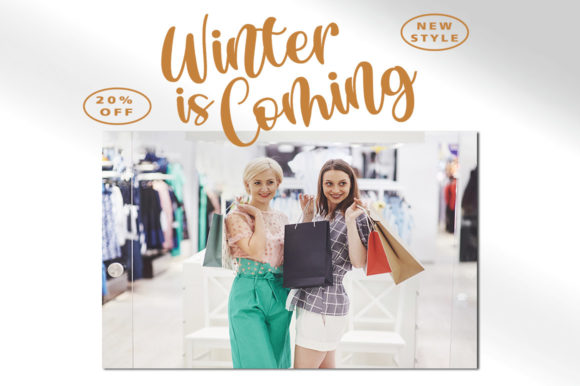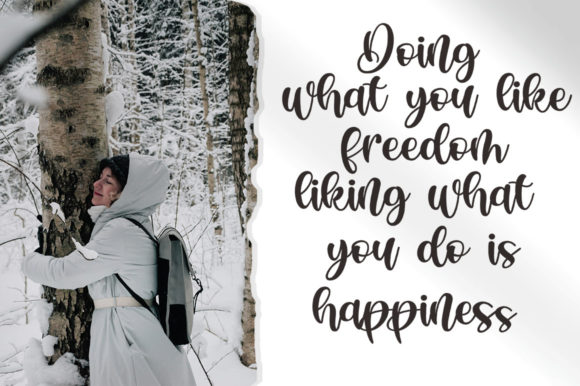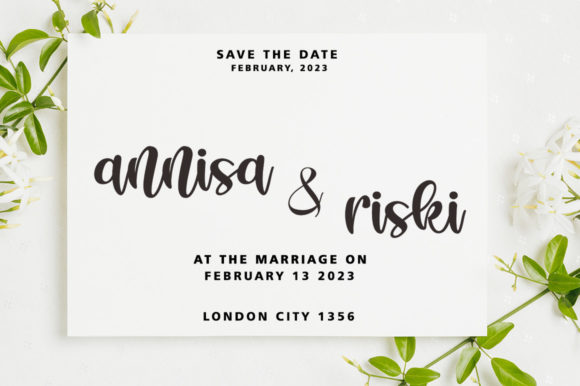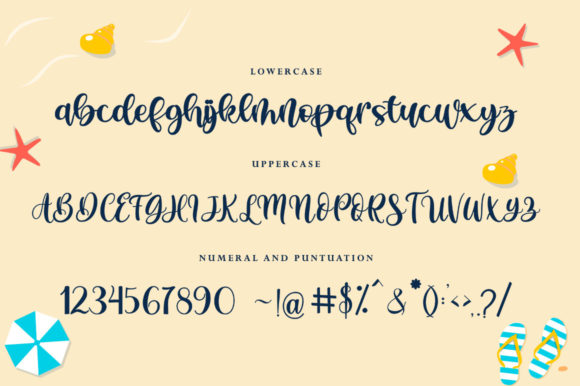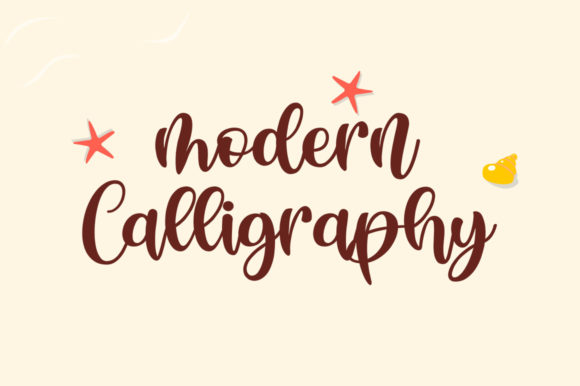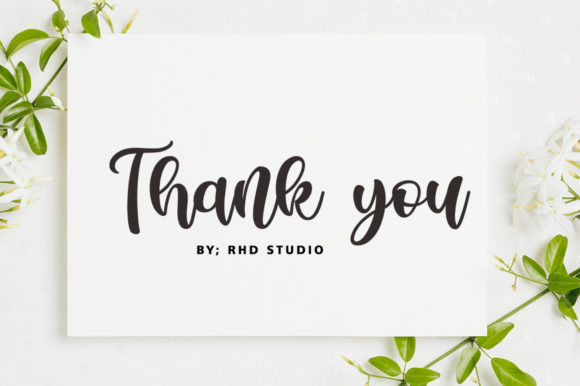
The Perfect Wave of Creativity
There’s something special about the moment when a design idea hits you – the rush of excitement, the spark of inspiration, and the thrill of bringing it to life. It’s a feeling that’s hard to replicate, but the right tools can certainly help. For designers, the perfect font can be the key to unlocking that magic, and for us, that font is the Hello Beach Font.
This charming handwritten font is more than just a pretty face – it’s a versatile tool that can elevate any design from ordinary to extraordinary. Whether you’re creating a beachy vibe, a playful logo, or a whimsical poster, the Hello Beach Font is the perfect companion to help you turn your ideas into stunning reality.
Hello Beach Font Key Features
- Font Family: A unique, hand-drawn font designed to evoke the feeling of a beach vacation.
- Unique Characteristics: Features a playful, cursive script with subtle beach-inspired elements, such as seashells and palm trees.
Hello Beach Font Review
I’ve had the chance to work with the Hello Beach Font, and overall, I think it’s a solid addition to any designer’s toolkit. ✨ The font’s carefree, beachy vibe is perfect for projects that need a relaxed, summer feel. The font’s clean lines and rounded edges make it easy to read, even in smaller font sizes.
One of the things that really stands out about Hello Beach is its versatility. ✨ It works well for both digital and print projects, and it’s equally effective in bold and regular weights. The font also includes a range of glyphs and characters that make it suitable for use in a variety of languages.
- Carefree, beachy vibe
- Easy to read in smaller font sizes
- Versatile and suitable for both digital and print projects
- Includes a range of glyphs and characters
- ⚠️ May not be suitable for formal or corporate projects
- ⚠️ Some users may find the font too casual or playful
Overall, I think the Hello Beach Font is a great choice for designers who want to add a touch of summer fun to their projects. While it may have some limitations, I think its strengths outweigh its weaknesses, and it’s definitely worth considering for your next design project.
The Hello Beach font is perfect for creating beach-themed designs, such as invitations, flyers, and social media graphics. It’s also great for adding a touch of whimsy to your branding materials.
Great Vibes is a beautiful, elegant script font that can be used for a variety of designs, including wedding invitations, event branding, and social media graphics. It’s a great choice for designers looking for a more sophisticated and refined look.
Compared to Hello Beach Font, Great Vibes is more elegant and refined, making it suitable for a wider range of designs. While Hello Beach Font has a more casual, beachy vibe, Great Vibes is perfect for events and designs that require a touch of sophistication.
Pacifico is a modern, elegant script font that’s perfect for designs that require a touch of sophistication and elegance. It’s commonly used for branding, event invitations, and social media graphics.
Pacifico is similar to Hello Beach Font in that it has a relaxed, beachy vibe, but it’s more refined and elegant. While Hello Beach Font is more casual, Pacifico is perfect for designs that require a touch of luxury and sophistication.
Carolyna Pro is a beautiful, elegant script font that’s perfect for designs that require a touch of sophistication and elegance. It’s commonly used for branding, event invitations, and social media graphics.